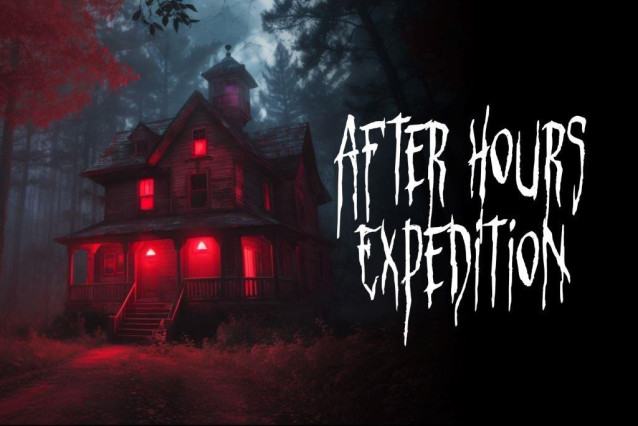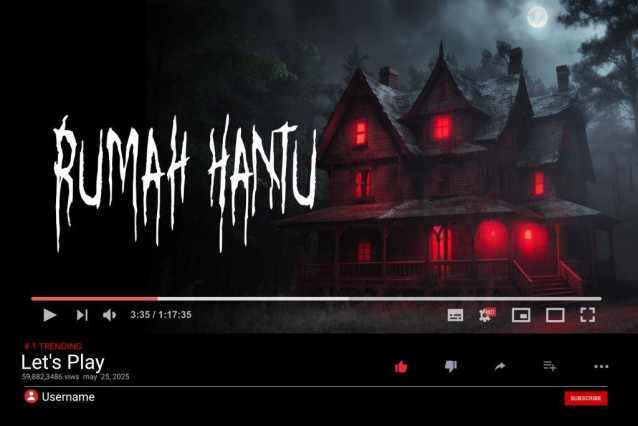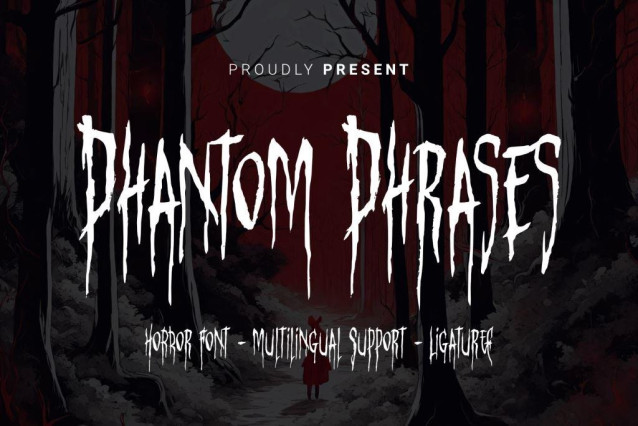
Phantom Phrases Font
Phantom Phrases Font is a font that instantly creates a sense of horror and mystery. This font combines typographic elements with supernatural undertones, giving the impression that words written with this font may originate from the otherworldly. Each letter appears as if it were etched by an unseen hand, with signs of the presence of invisible entities. Fine, sharp lines present a touch of darkness, as if every word is a whisper from the unseen world. Phantom Phrases is the perfect choice for projects requiring a horror touch, such as movie posters, mystery stories, or logos for supernatural events. The font brings a mystical atmosphere that will send shivers down your spine.